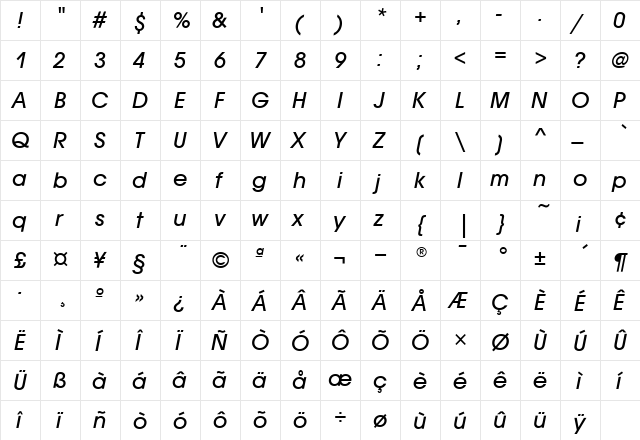
AvantGardeMdITC Italic
Design Context for AvantGardeMdITC Typeface
AvantGardeMdITC offers clean, dependable letterforms without strong stylistic allegiance, making it a practical choice for designers who need flexibility. The dynamic lean of this cut emphasises speed and emphasis in any layout.
Pro Tip: Try AvantGardeMdITC for annotation and caption copy alongside an upright companion — the contrast in angle creates a dynamic but ordered typographic system.